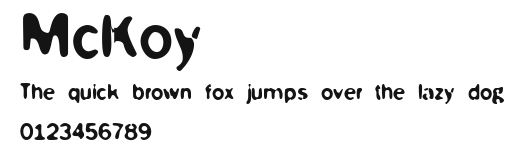
McKoy.ttf
About McKoy.ttf
McKoy.ttf is a modern, elegant sans-serif font designed for ultimate readability and visual harmony. Perfect for branding, headlines, web design, and print materials.